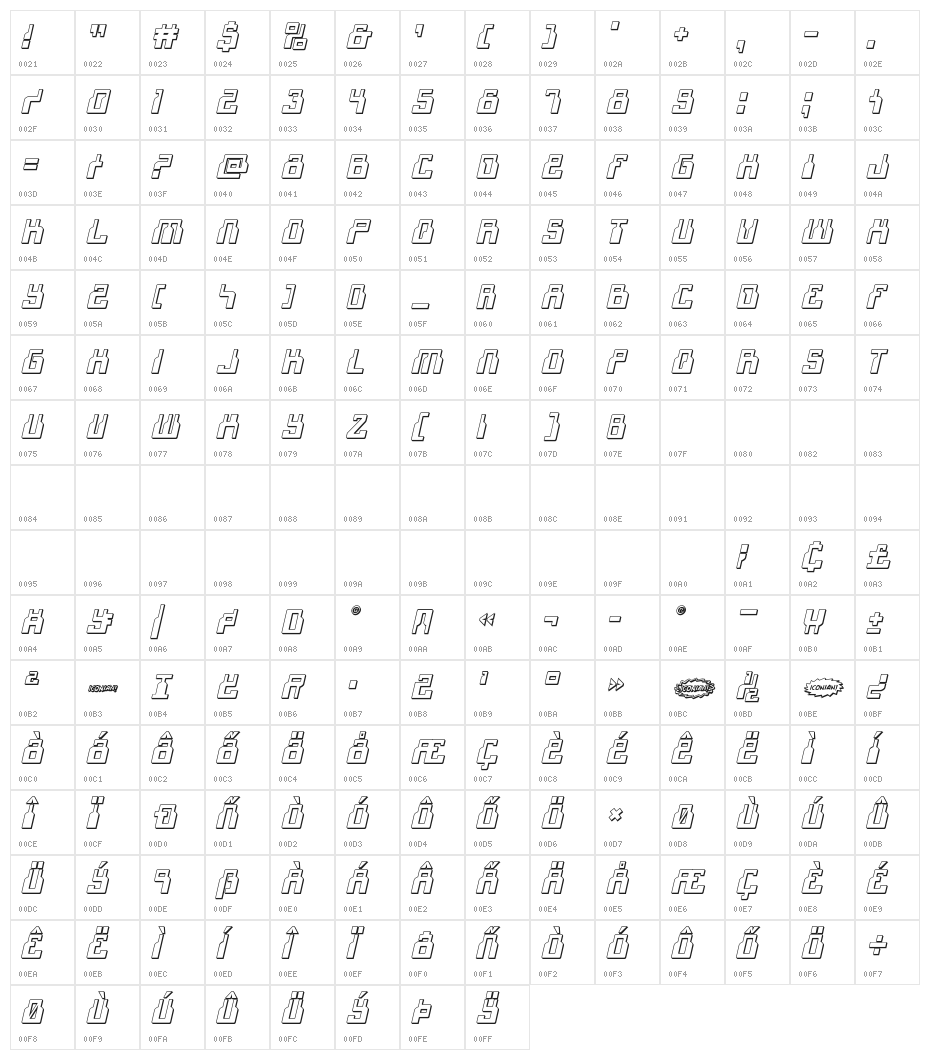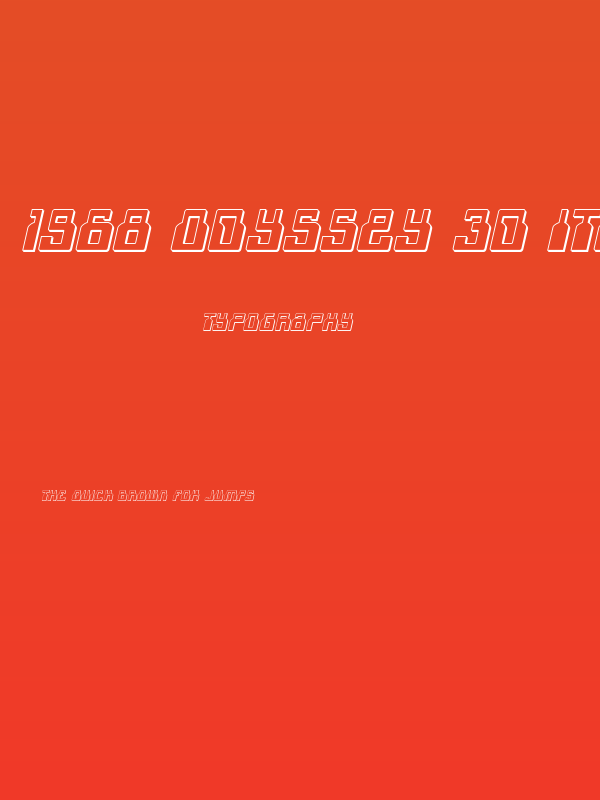
1968 Odyssey 3D Italic Font
1968 Odyssey 3D Italic Description
This font features a bold, three-dimensional design with an italic slant, giving it a futuristic and dynamic appearance. The characters are outlined, creating a hollow effect that enhances its 3D look. Each letter and number is constructed with sharp angles and clean lines, contributing to a modern and tech-inspired aesthetic. The uppercase and lowercase letters maintain a consistent style, with the lowercase slightly smaller but equally bold. The numerals and special characters follow the same design principles, ensuring uniformity across the font. This font's unique style makes it stand out, ideal for projects that require a strong visual impact.
Overall StyleFuturistic
Proposed ProjectsIdeal for sci-fi themed designs, video game titles, tech branding, and futuristic posters.